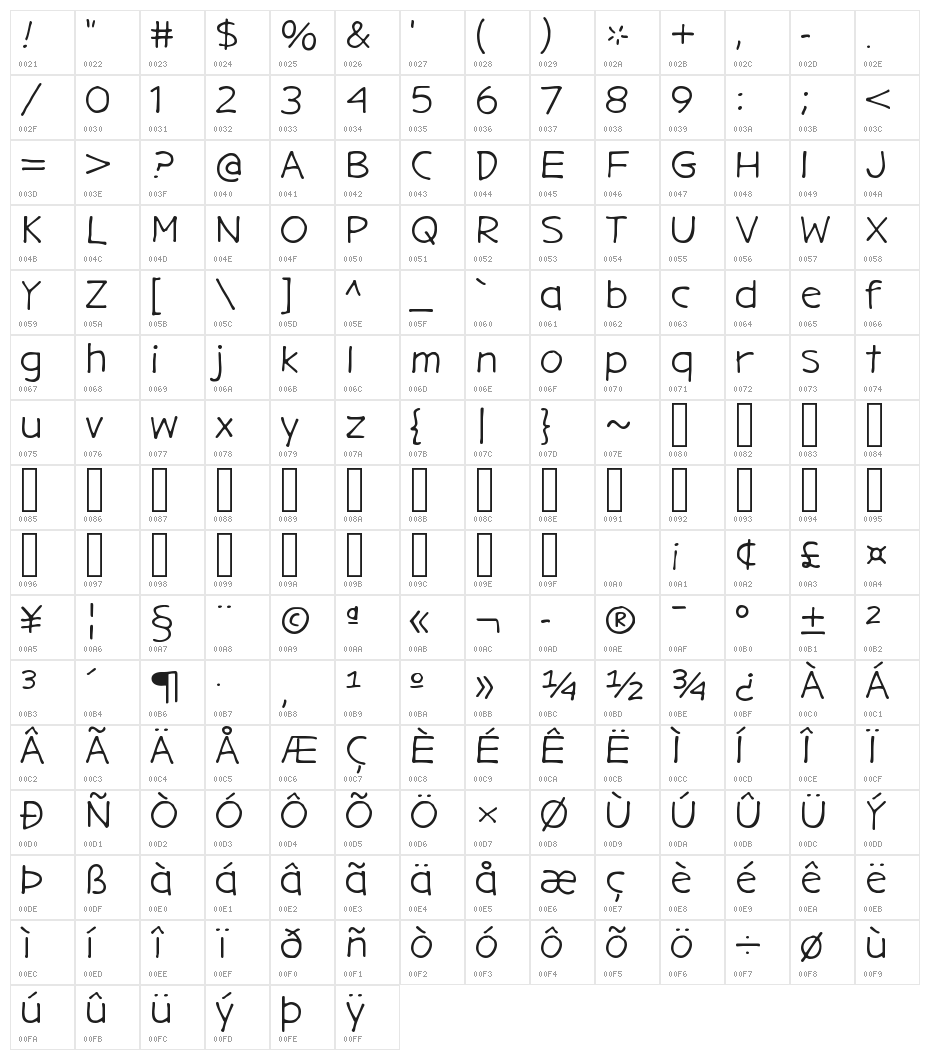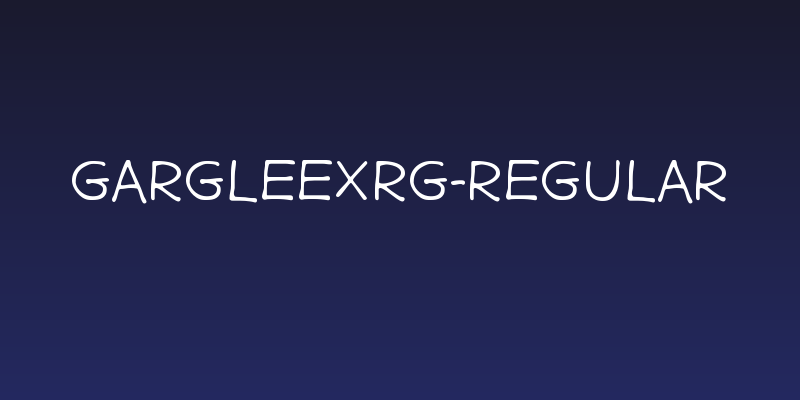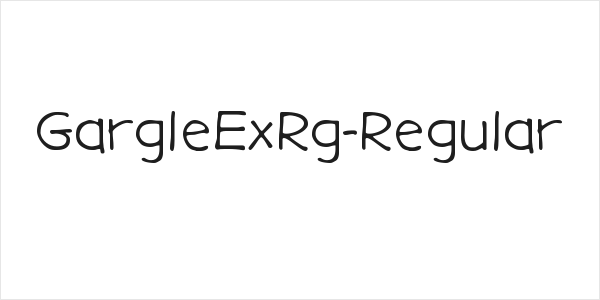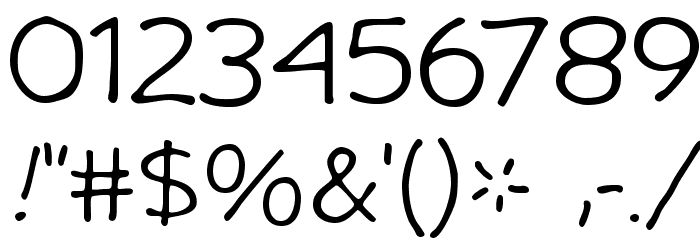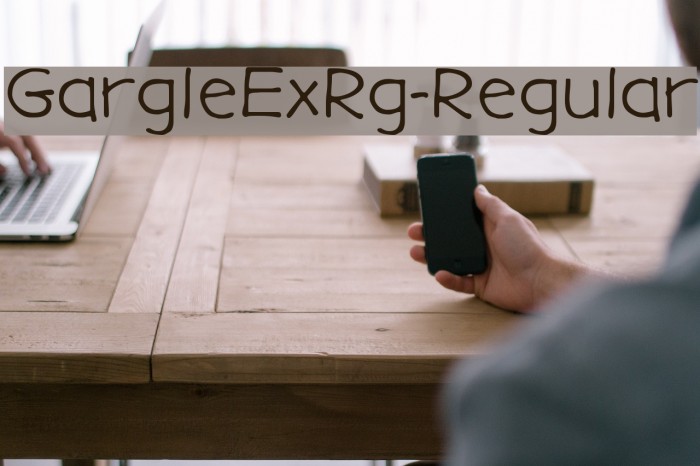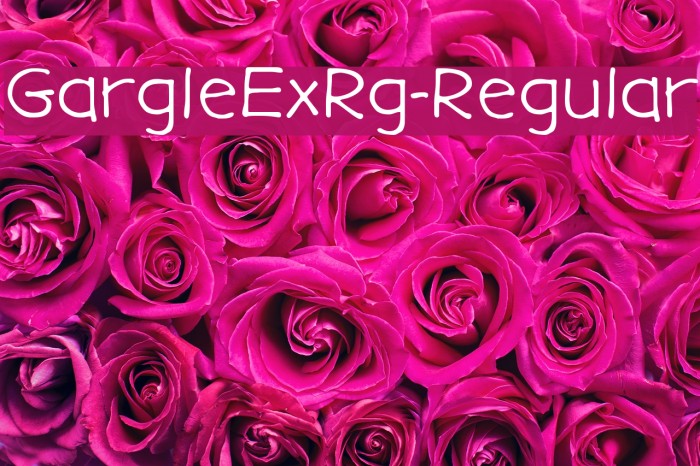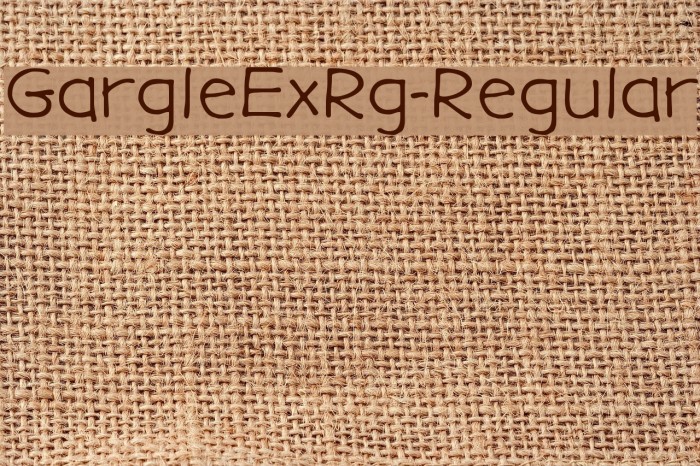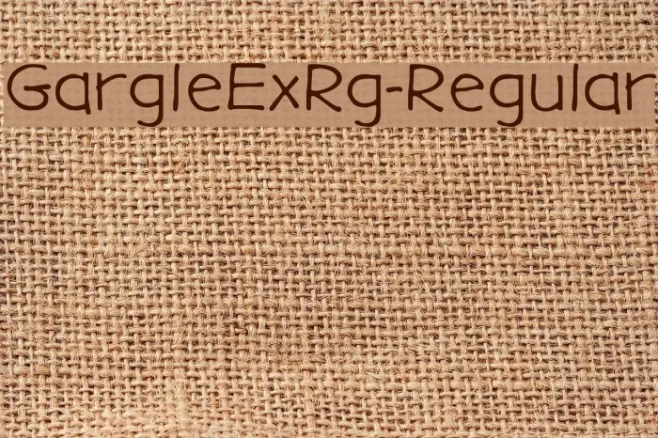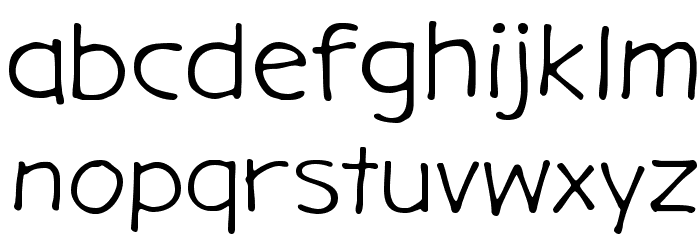
GargleExRg-Regular Font
GargleExRg-Regular Description
This font features a playful and informal style with rounded edges and a hand-drawn appearance. The characters are slightly irregular, giving it a whimsical and approachable feel. The uppercase and lowercase letters maintain a consistent height, contributing to its readability. The numerals and special characters follow the same playful design, making it suitable for creative and casual projects. The overall look is friendly and inviting, ideal for projects that require a personal touch.
| Overall Style | Casual, Playful |
| Use Case | Headlines, Logos, Informal text |
| Proposed Projects | Children's books, greeting cards, casual branding, playful posters, and educational materials. |